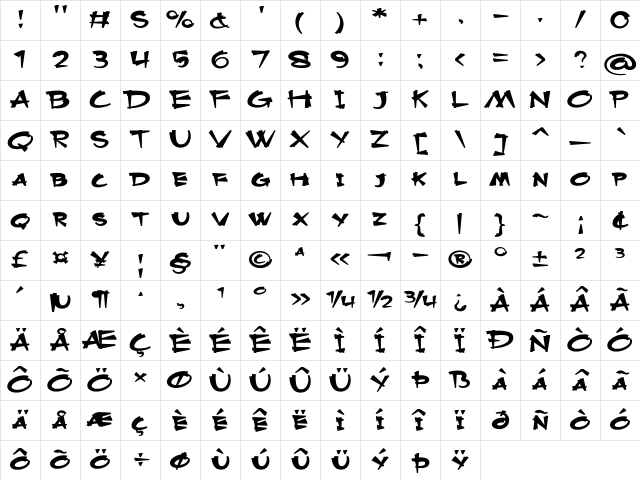
Terricon Expanded Regular
Style: Expanded Regular
Terricon Family
Terricon Expanded Regular
Design Context for Terricon
Terricon is a composed and adaptable typeface that performs quietly and consistently across a wide range of design contexts.